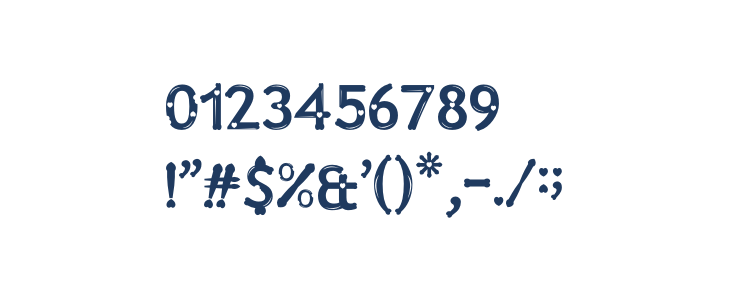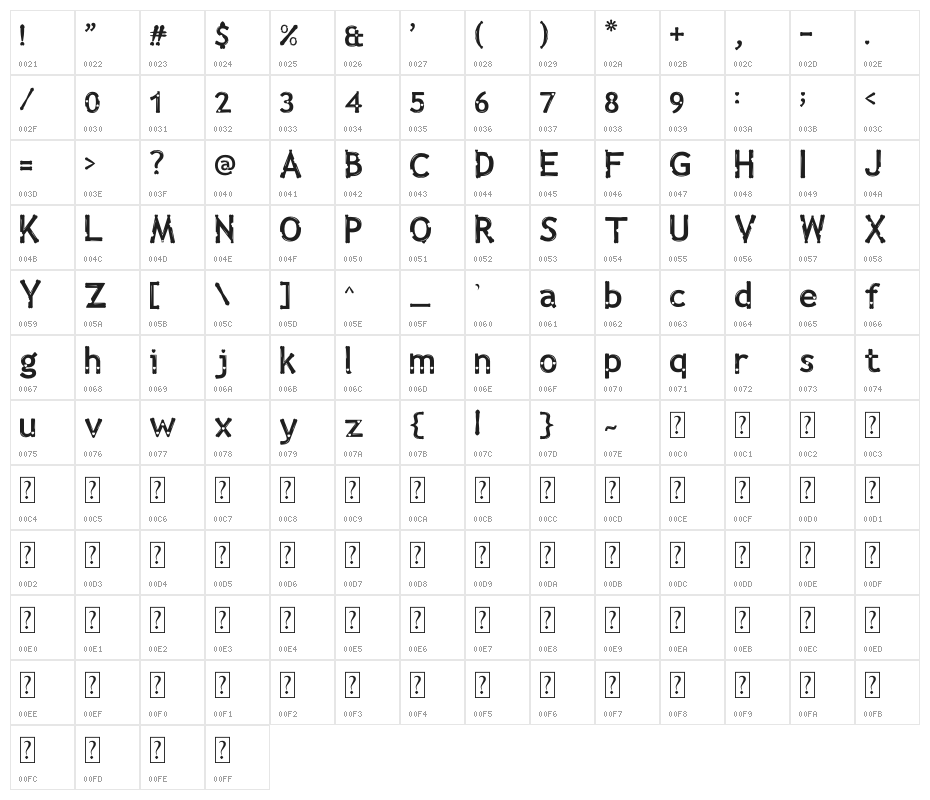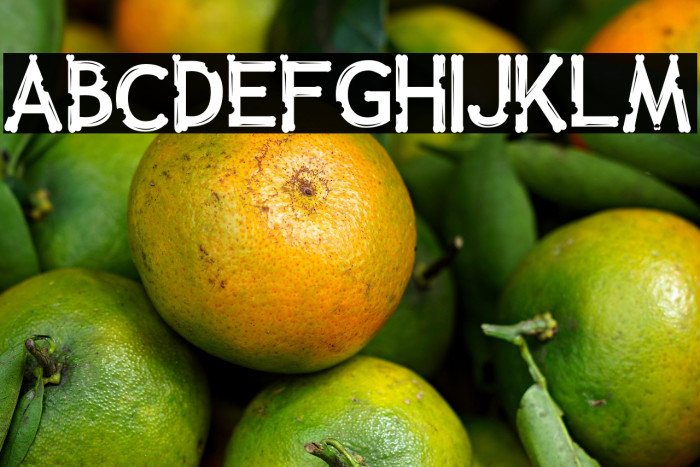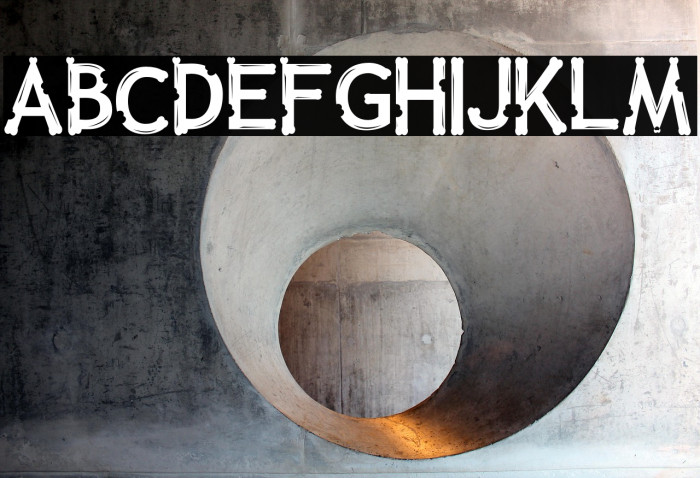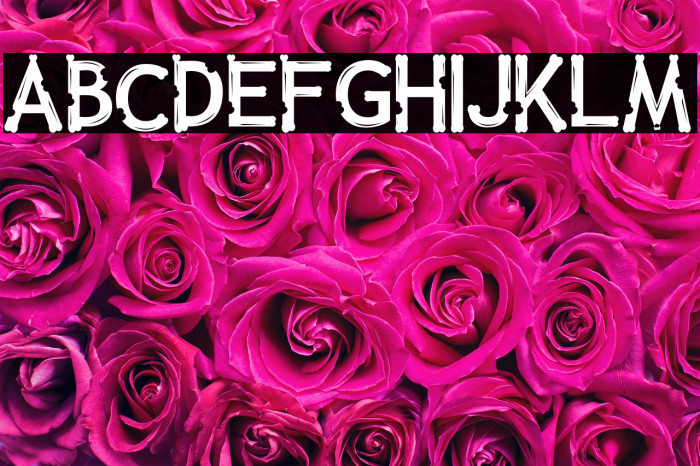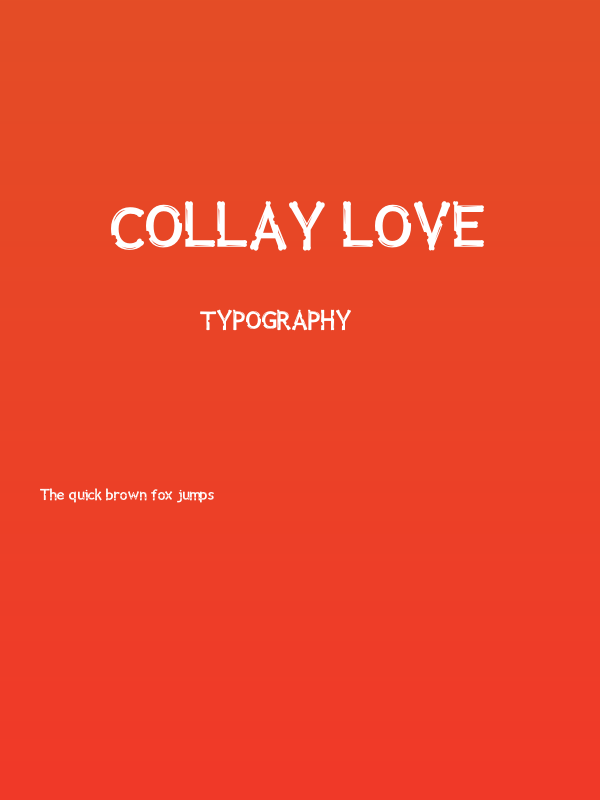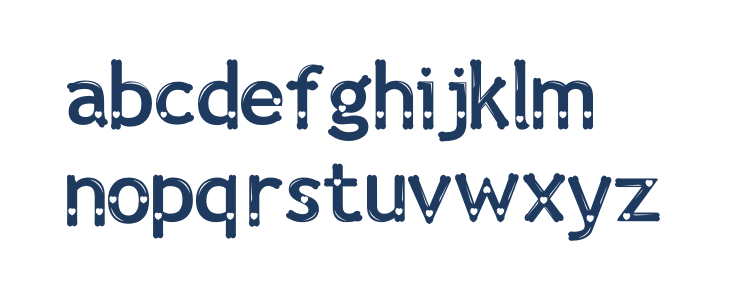
Collay Love Font
Collay Love Description
This font features a playful and decorative style with unique circular embellishments at the intersections of strokes. The uppercase and lowercase letters maintain a consistent structure, with bold lines and rounded terminals. The numbers and special characters follow the same design principles, ensuring a cohesive look. The font's whimsical nature makes it stand out, while the consistent stroke width provides a sense of balance. Its distinctive appearance is suitable for creative projects that require a touch of fun and originality.